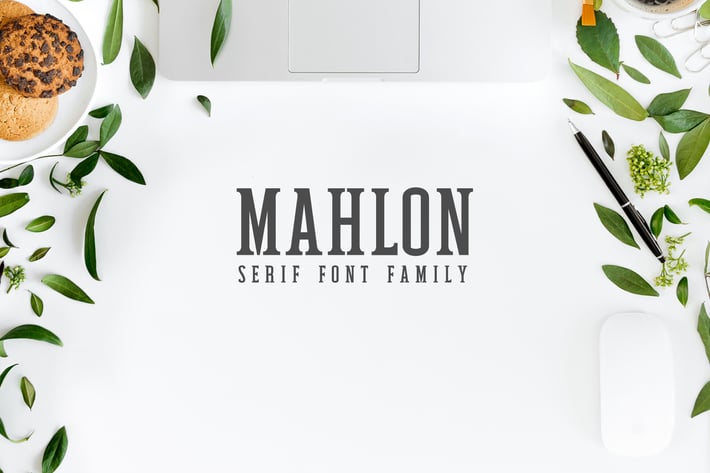
Mahlon Serif Font Family Pack
Mahlon is a beautiful minimal serif font with strong personality, that makes it perfect for use in the headline, wedding invitation, greeting cards, T-shirt, branding and logo projects, merchandise, social media posts, product packaging, or any design that you create.